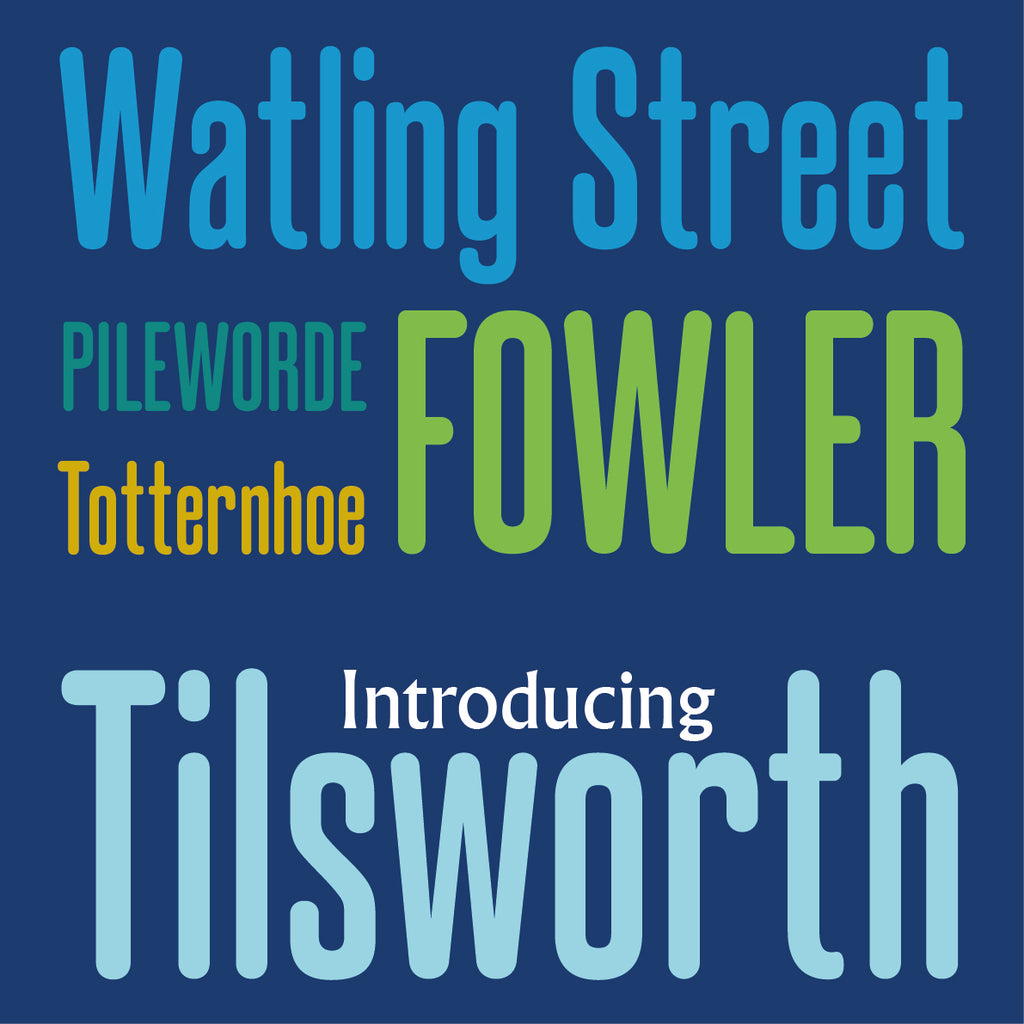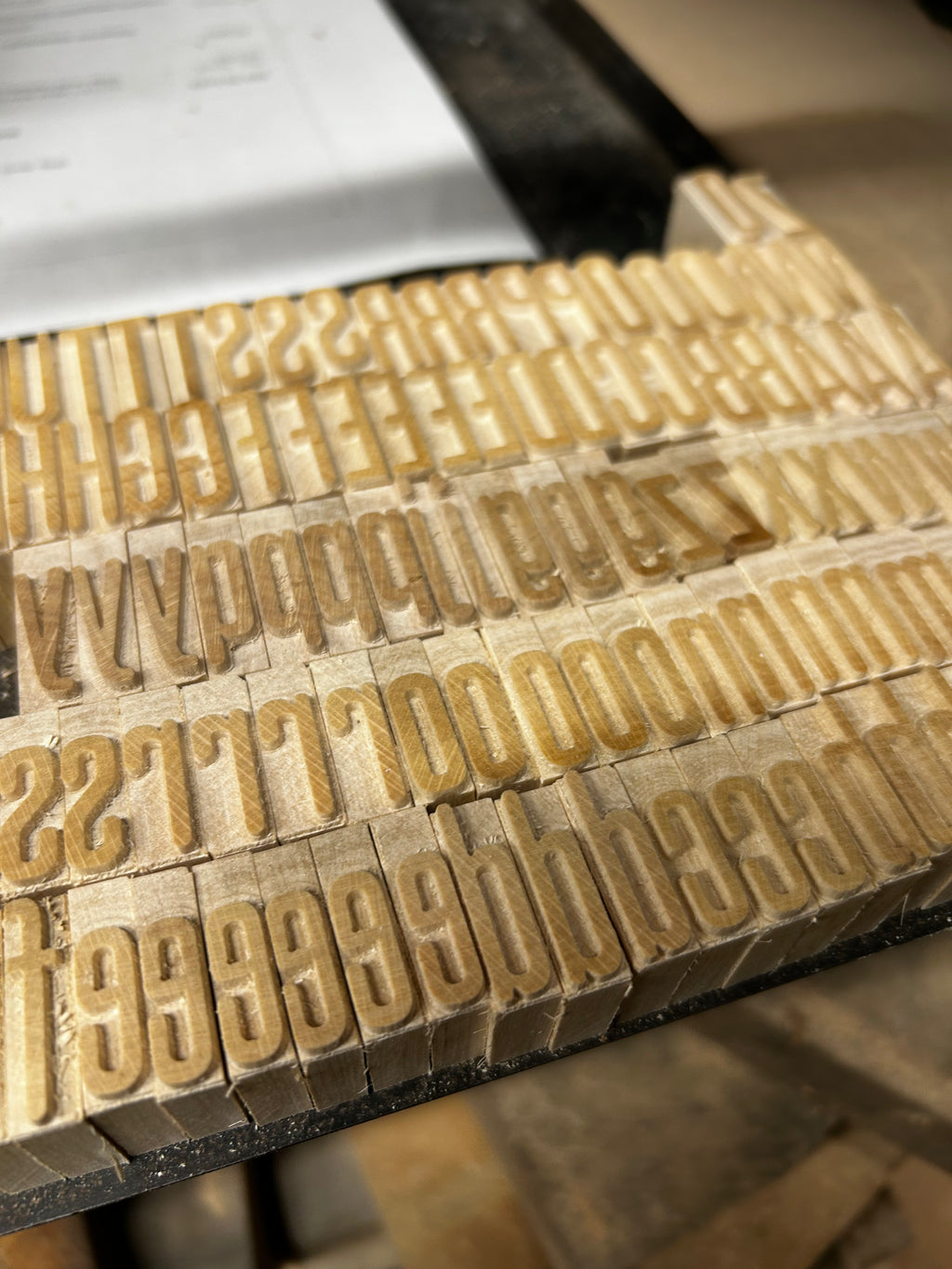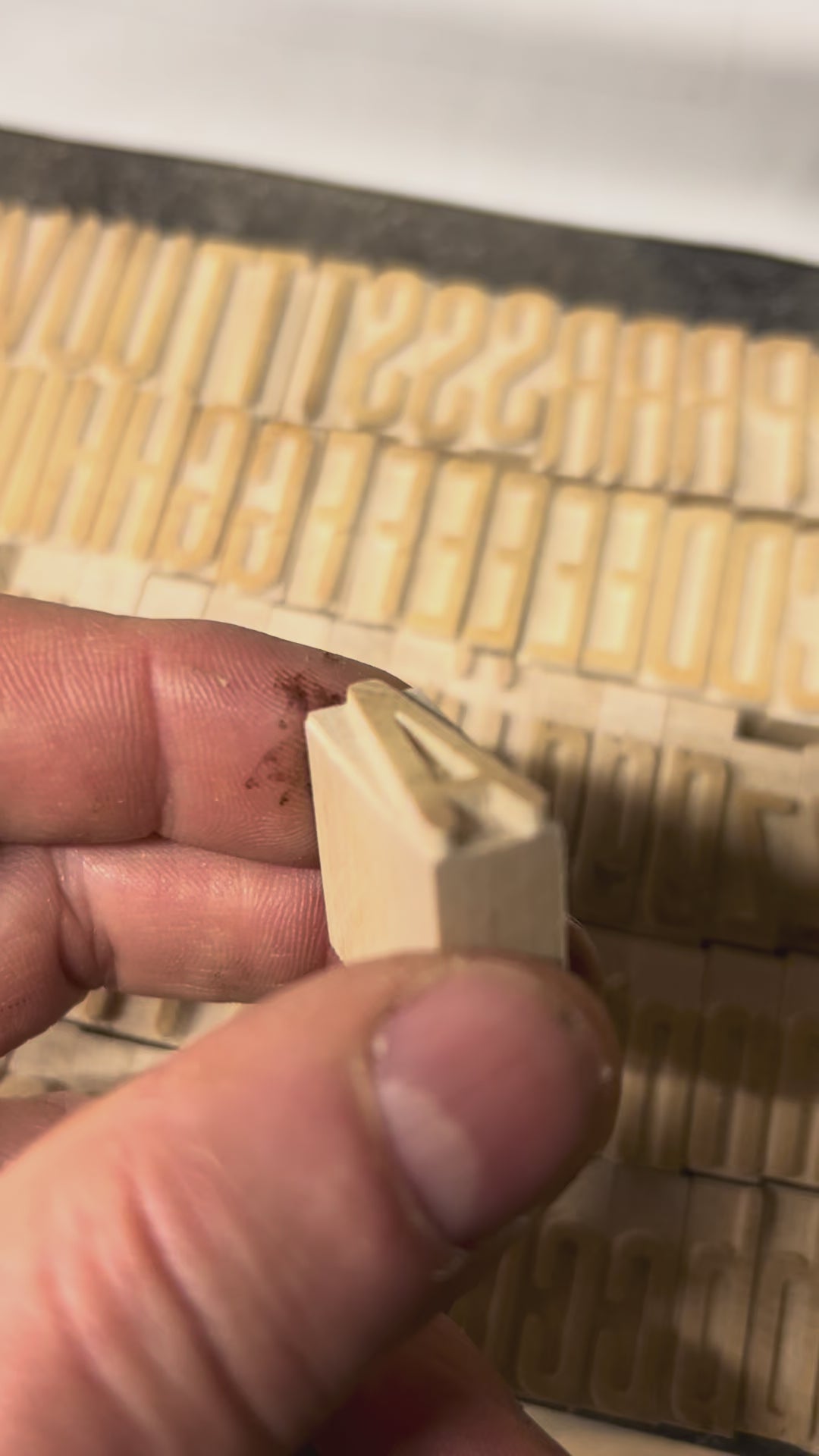
'Tilsworth' letterpress woodtype typeface
Introducing 'Tilsworth' - based on 'Nebride/Nektar' by German type foundry J.G. Schelter & Giesecke and redrawn by Mark McKellier. Part of my 'Revival' series.
10 line (42.3mm) and 6 line (25.4mm) versions cut from end grain English hardwood using a combination of modern CNC technology and traditional hand woodworking tools (including an original printers saw), made to English type-high (0.918in or 23.3mm) within plus or minus 0.1mm tolerance, sealed with shellac and hand finished with a traditional polished printing surface.
End grain English hardwood, clear shellac
Each block varies in width however average size is 25 x 23.3 x 42.3mm for the 10 line.
Made by Mark McKellier..